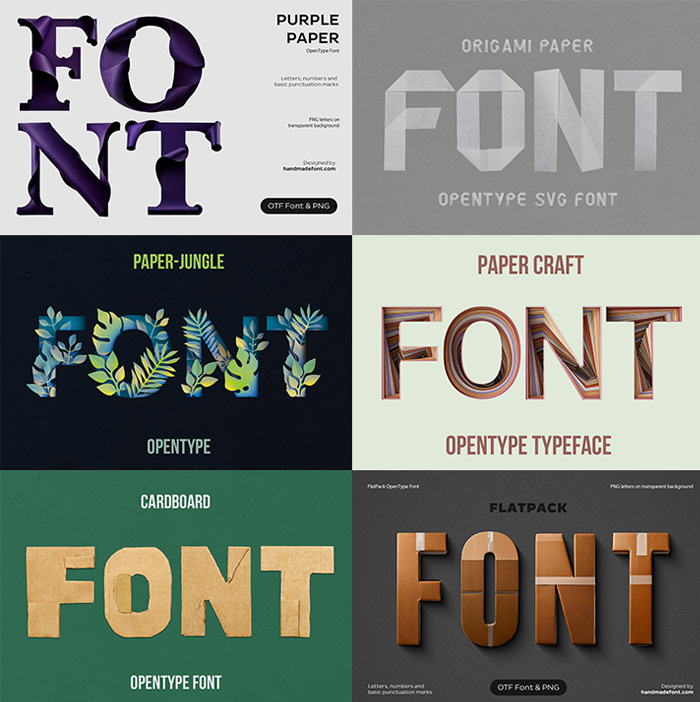
Paper Fonts – Folded, Cut & Corrugated Alphabets
Paper Fonts collects the alphabets made from real sheets and board: folded, torn, stacked, cut with a blade or pressed out of corrugated card. Some are pale and sculptural, others are honest brown kraft, and one is built from sharpened pencils. Every one installs as an OpenType file and brings transparent PNG letters with it.
Paper Fonts is the quietest shelf in the shop, and the one that photographs softest. Sheets here get folded, torn, stacked and cut with a blade, and the ragged edge is left showing on purpose. Corrugated board turns up whenever a letter needs real weight. Nothing on this shelf shines, so these alphabets sit happily on a plain white page where the metal ones would look cold.
The Only Material You Already Have at Home
Purple Paper Font cover displaying large folded violet paper letters spelling FONT with OpenType and PNG information.
Purple Paper Font
Layered violet sheets cut into high-contrast capitals with a soft paper grain.
Grey poster spelling FONT in folded paper of the Origami Paper Font
Origami Paper Font
Flat sheets folded once and creased, so every facet catches its own light.
Dark poster spelling FONT in leafy letters of the Paper-Jungle Font
Paper Jungle Font
Cut leaves and stems layered into letters over deep teal.
Pale green poster spelling FONT in striped paper of the Paper Craft Font
Paper Craft Font
Card stacked layer on layer, so each letter steps down like a contour map.
Green poster spelling FONT in white paper ripples of the Paper Waves Font
Paper Waves Font
White paper carved into ripples, with the shadow doing all the drawing.
Dark green poster spelling FONT in the Cardboard Cut Font above an OpenType caption
Cardboard Cut Font
Kraft card hacked out by hand, edges left rough where the blade wandered.
Dark poster reading FONT in the Cardboard Package Font above and below small label text
Cardboard Package Font
Thick corrugated board, cut deep enough to throw a real shadow.
Dark grey cover card reading FONT in cardboard letters of the Flat Pack Font
Flat Pack Font
Slabs of brown board that look bolted together straight from a kit.
Pencil Font lettering made from realistic yellow pencils
Pencil Font
Sharpened yellow pencils laid end to end, erasers and all.
Paper Fonts and the Look of Something Made by Hand
Packaging is the obvious home, since a paper letter on a paper box needs no explaining. Children’s books, craft brands, stationery and recycling campaigns reach for this shelf too, because the material carries the message before anyone reads a word. Meanwhile the cardboard ones do heavier work, on delivery brands and warehouse signage that would rather look practical than pretty. So paper fonts end up on boxes far more often than on screens.
More Paper Fonts in the Drawer
Plain sheets and folds fill most of it, so start with Paper Cut Font, Paper Collage Font, Paper Brown Font, Fold Type Font, Colorful Paper Craft Font and Burn Paper Font, where the sheet is singed rather than sliced. Cardboard keeps its own corner with Cardboard Box Alphabet and Cardboard Box Sign Font. Then come the pencils: Pencil Set Font, Colored Pencils Font and Pencil Sketch Font, which draws its letters instead of building them.